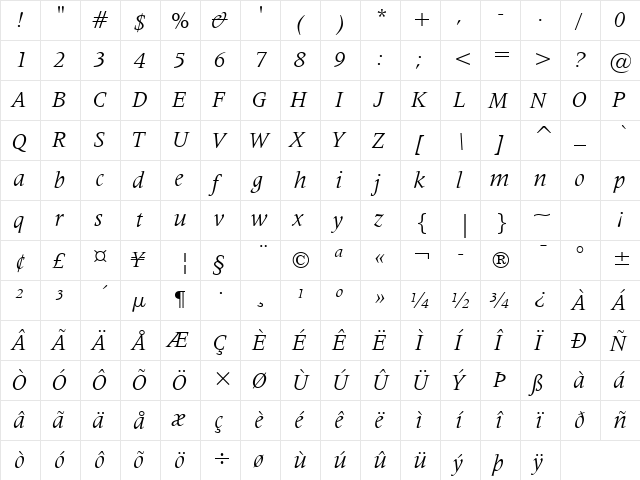
Latin725 BT Italic Font Preview
Latin725 BT Italic
Latin725 BT Italic Font Details
Design Context for Latin725 BT Typeface
Latin725 BT offers clean, dependable letterforms without strong stylistic allegiance, making it a practical choice for designers who need flexibility. Its italic angle brings a sense of urgency and motion to the letterforms.